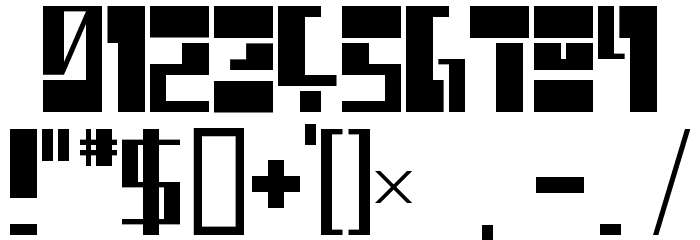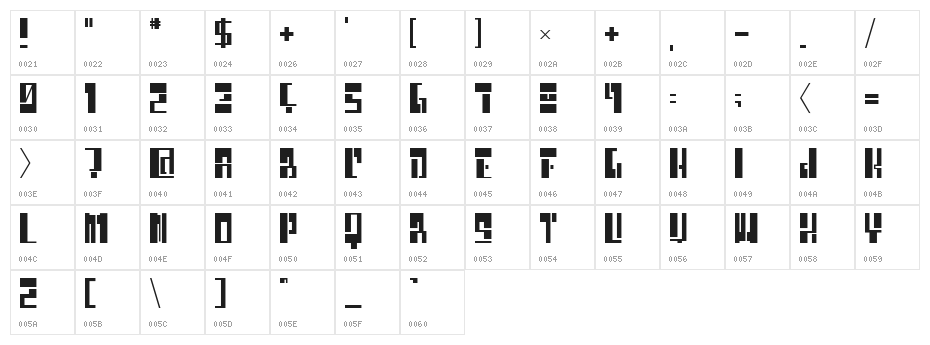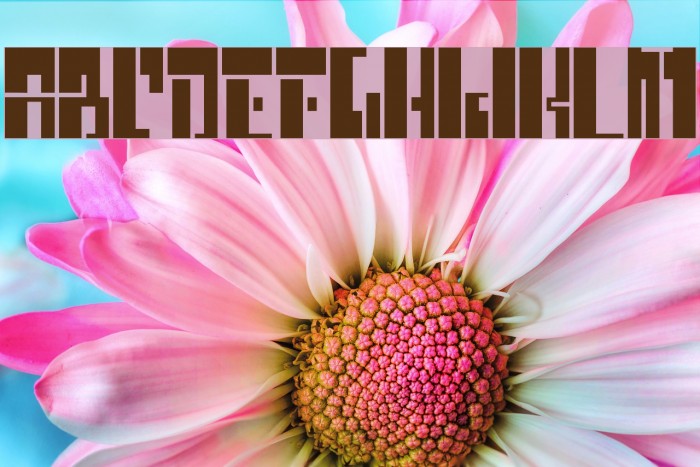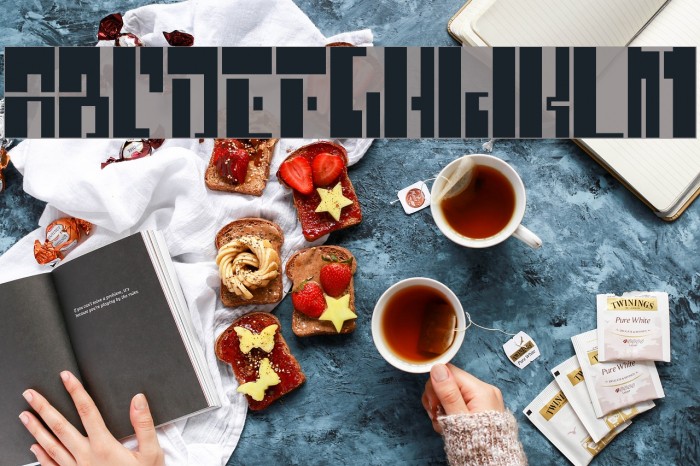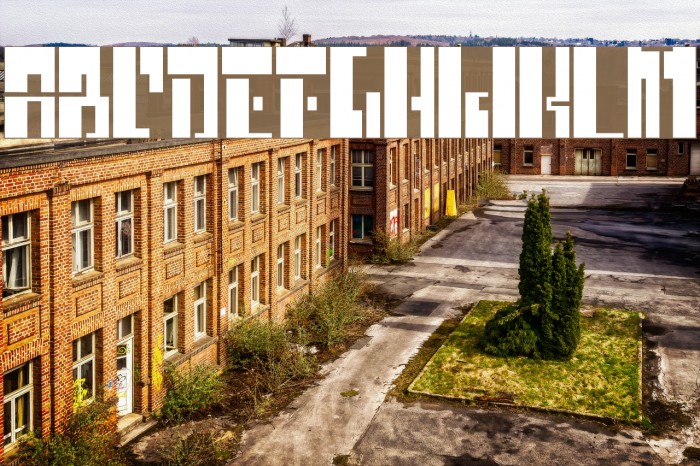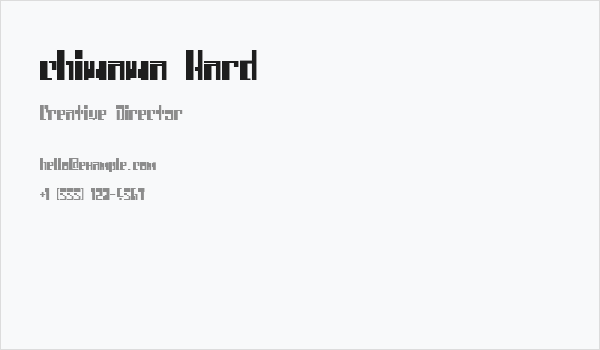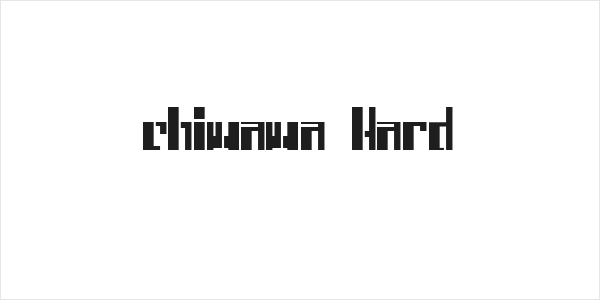
chiwawa Hard Font
chiwawa Hard Description
This font features a bold, geometric design with a distinctly modern and futuristic aesthetic. Each character is constructed with sharp angles and straight lines, creating a blocky, almost digital appearance. The uppercase and lowercase letters maintain a consistent height, contributing to a uniform look across the typeface. Numbers and special characters are designed with the same angular style, ensuring cohesion throughout. The font's unique structure makes it stand out, with a strong emphasis on vertical and horizontal lines, giving it a robust and impactful presence.
| Proposed Projects | Ideal for tech-related branding, video game titles, posters, and futuristic designs. |